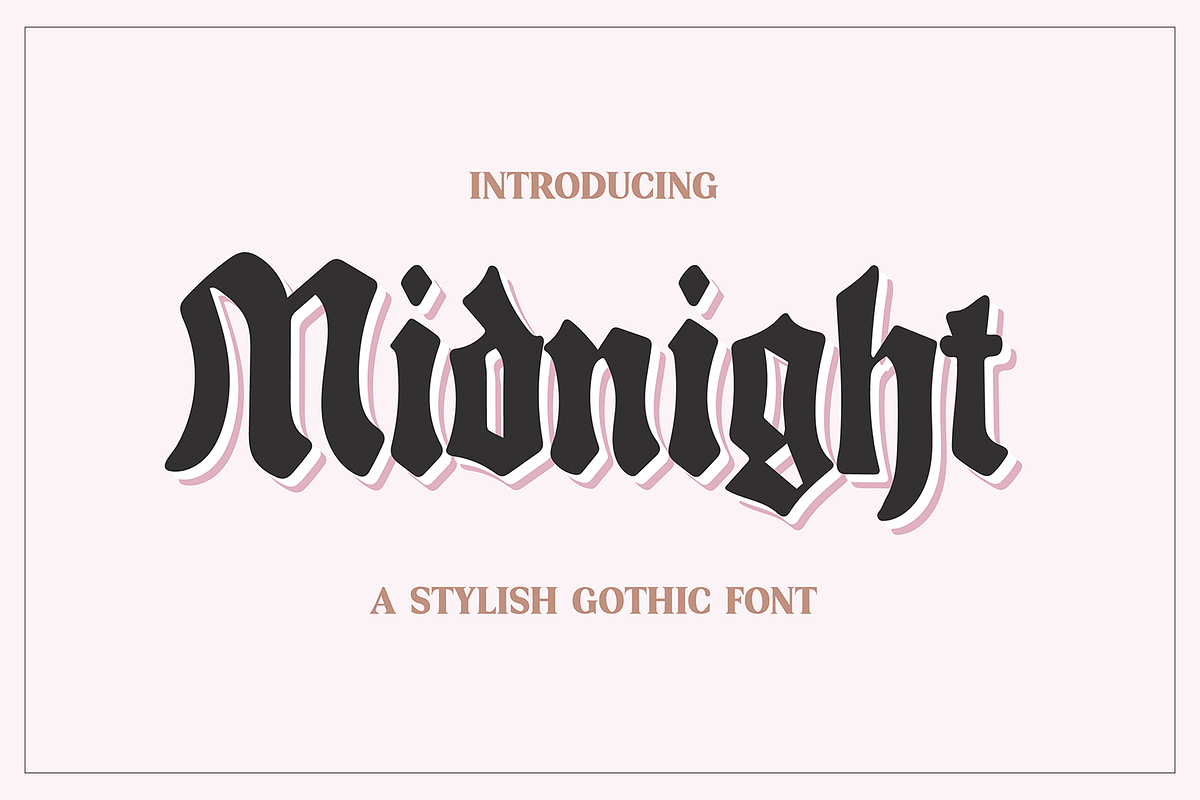
The MIDNIGHT Stylish Gothic Font Free Download is a bold and dramatic typeface that blends gothic elements with modern style. Perfect for dark-themed branding, posters, music album covers, tattoos, and anything requiring an edgy, mysterious vibe, this font brings an aura of elegance and strength.
With sharp, distinctive edges and intricate details, MIDNIGHT offers a sophisticated yet edgy aesthetic, making it ideal for projects that need to make a bold statement. It includes uppercase letters, numbers, punctuation, and multilingual support, giving you the flexibility to create impactful designs.